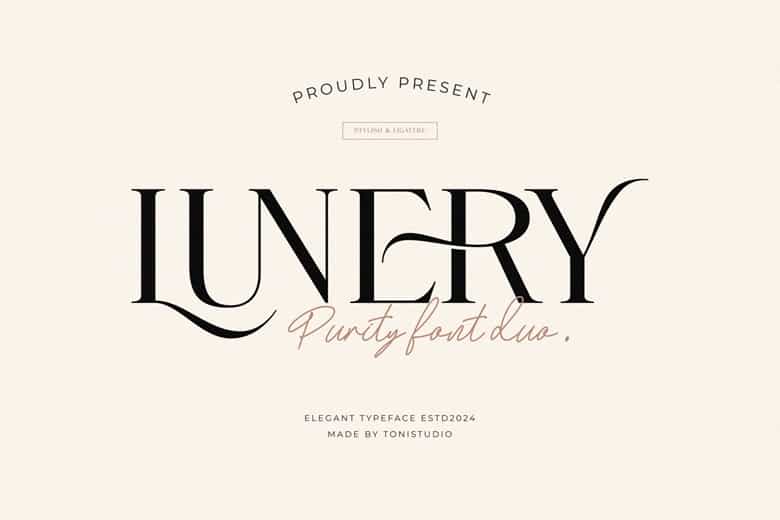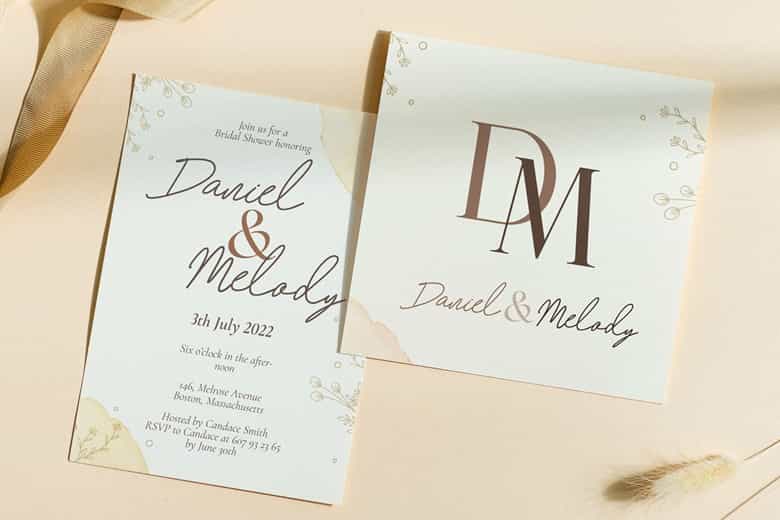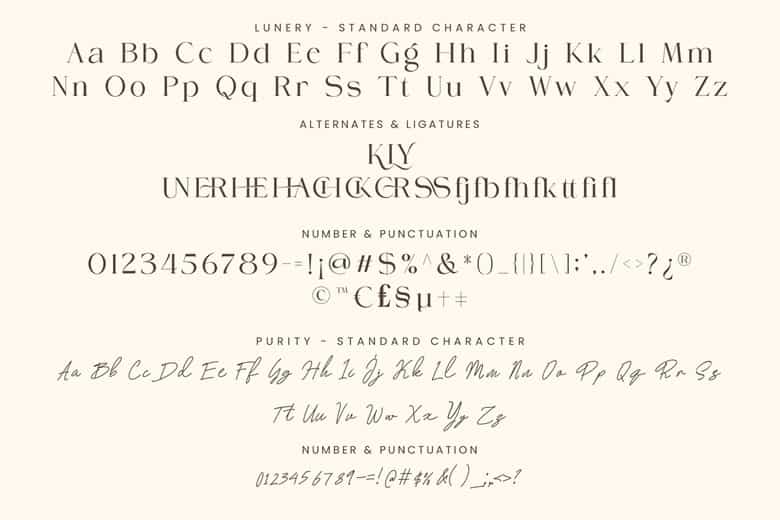
Lunery Purity is a high end font duo that reflects style and refinement.. Modern style serif fonts contain ligatures and another character. Designed for poster designing, web designing, branding, illustration, badges and many more. Lunery Purity also contains a set of script fonts that will help you complete your special designs.